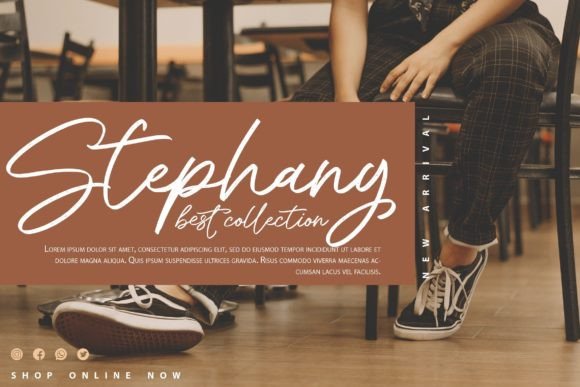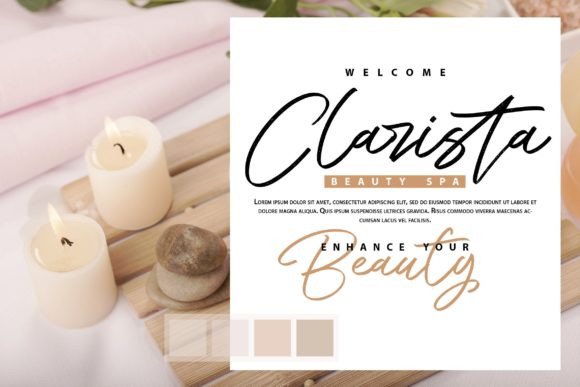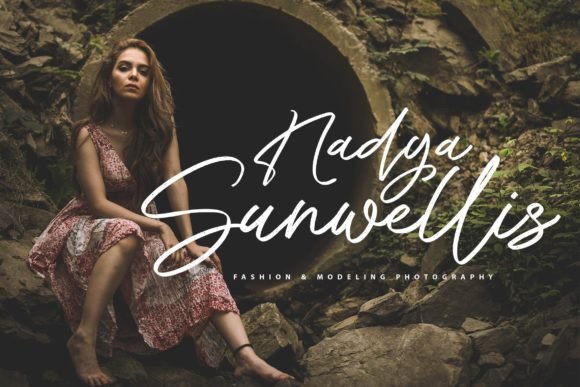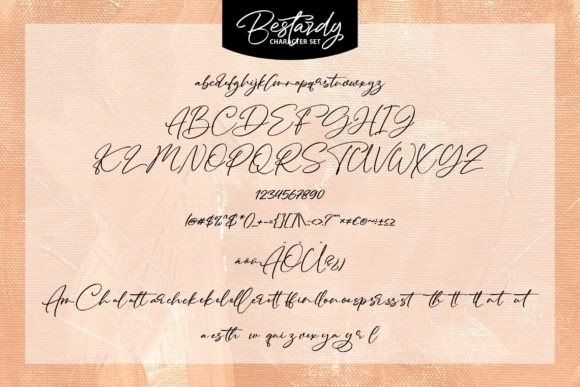
Discover the Enchanting Bestardy Font: Elevate Your Designs with a Touch of Romance
In the world of typography, fonts play a crucial role in setting the tone and aesthetic of a design. For crafters, designers, and artists looking to infuse their projects with a romantic and whimsical feel, the Bestardy Font is an exceptional choice. This enchanting handwritten font is not only versatile but also perfect for a wide range of applications, from greeting cards and invitations to headlines and more. Let’s dive into the captivating world of Bestardy and explore what makes it a must-have in your font collection.
The Charm of Bestardy Font
Bestardy is more than just a font; it’s an experience. Its elegant, flowing script is meticulously designed to bring a touch of romance and sophistication to any project. Whether you’re working on a wedding invitation, a Valentine’s Day card, or simply want to add a personal touch to your digital content, Bestardy is guaranteed to make your designs stand out.
One of the key advantages of Bestardy is its incredible versatility. This script font can be used across various platforms and projects, including:
• Greeting Cards: Add a personal and romantic touch to your greeting cards, making them unforgettable.
• Headlines: Elevate your blog posts, articles, and website content with elegant and eye-catching headlines.
• Invitations: Perfect for wedding invitations, birthday parties, and other special occasions.
• Digital Content: Enhance your social media posts, website banners, and email newsletters with a touch of elegance.
Bestardy is PUA (Private Use Area) encoded, which means accessing all the glyphs and swashes is effortless. This feature is particularly beneficial for designers who want to experiment with different styles and flourishes without the hassle of complicated font management. With Bestardy, you can easily access a wide range of characters and decorative elements to make your designs truly unique.
Why Choose Bestardy Font?
With so many fonts available, what sets Bestardy apart? Here are a few reasons why Bestardy should be your go-to font for romantic and whimsical designs:
• Unique Style: Bestardy’s distinctive handwritten style ensures your designs have a personal and bespoke feel.
• Ease of Use: Being PUA encoded, it offers flexibility and ease of use, making it accessible even for beginners.
• High Versatility: Suitable for a wide range of projects, from digital content to print materials.
• Romantic Appeal: Adds a touch of romance and elegance, perfect for special occasions and projects requiring a personal touch.
Tips for Using Bestardy Font Effectively
To make the most out of Bestardy, consider the following tips:
• Mix and Match: Combine Bestardy with other fonts for a layered look or use it as a standalone font for a cohesive design.
• Play with Sizes: Experiment with different font sizes to create visual hierarchy and emphasis in your designs.
• Utilize Swashes: Take advantage of the swashes and glyphs to add flourishes and personal touches to your text.
• Color Matters: Choose colors that complement the romantic and whimsical feel of Bestardy, such as soft pastels or rich jewel tones.
Bestardy Font is a beautiful addition to any designer’s toolkit, offering a unique blend of elegance, versatility, and romance. Whether you’re crafting a special invitation, creating engaging content, or simply looking to add a touch of whimsy to your designs, Bestardy is sure to exceed your expectations. With its PUA encoding for easy access to glyphs and swashes, and its suitability for a wide range of projects, Bestardy is poised to become your favorite go-to font for all things romantic and enchanting.